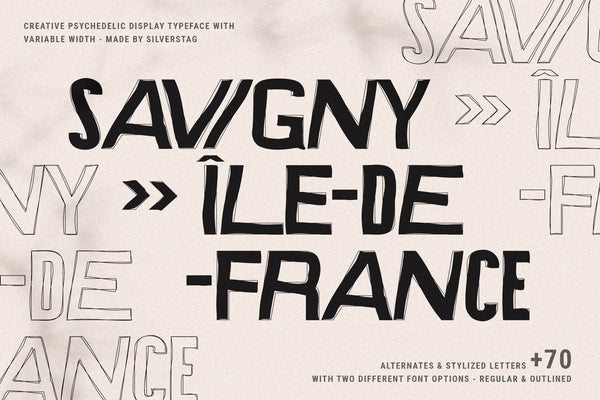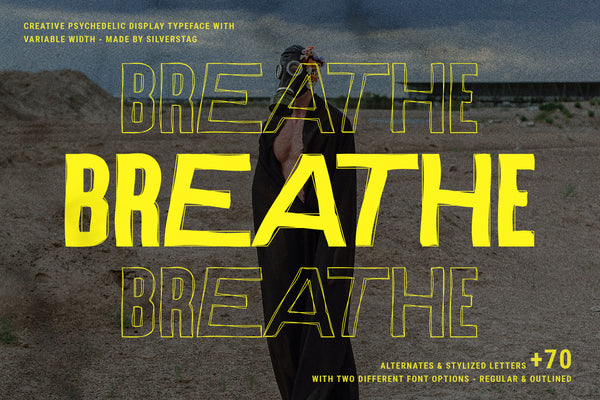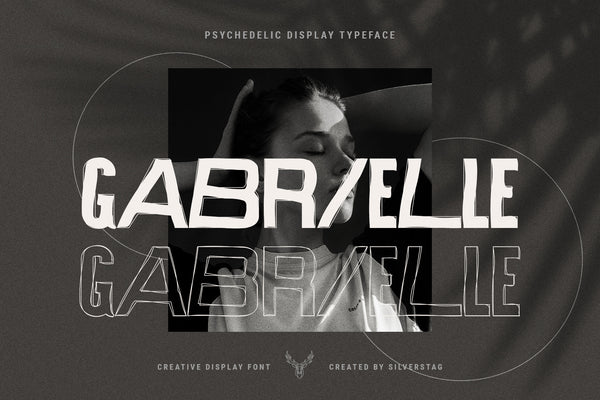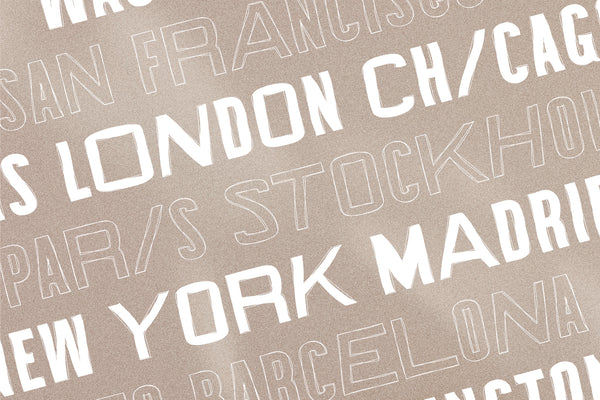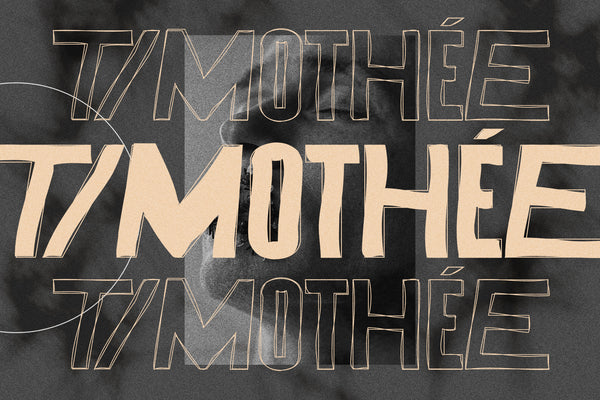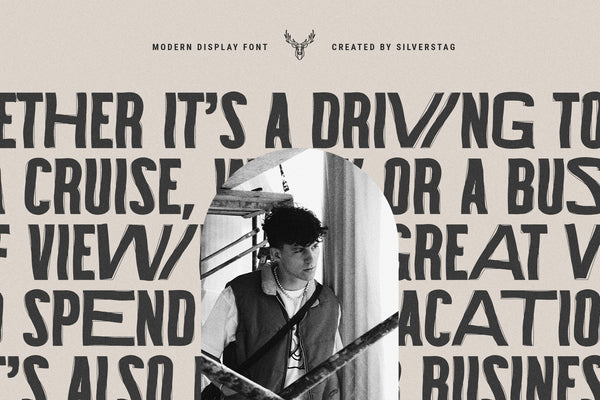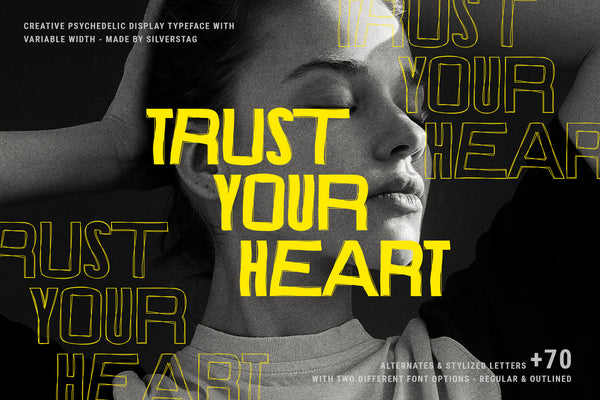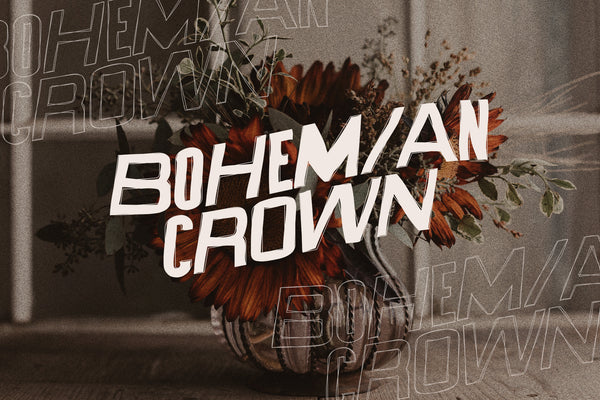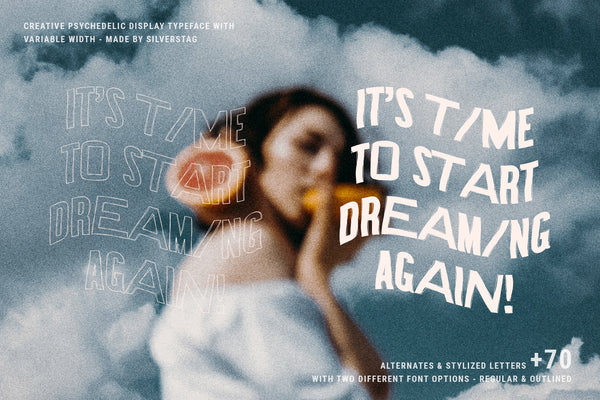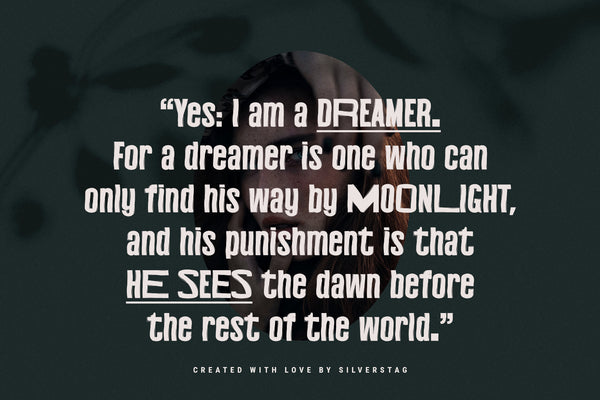
• SAVIGNY psychedelic display font hero reading Ile-de-France over cream
• Breathe specimen in yellow SAVIGNY psychedelic display font over a photo
• Gabrielle specimen in SAVIGNY psychedelic display font over a black-and-white portrait
• Tilted world-city showcase in SAVIGNY psychedelic display font naming Paris Madrid and Barcelona
• Timothee specimen in SAVIGNY psychedelic display font over a dark photo
• Leaf-viewing travel paragraph in SAVIGNY psychedelic display font with an inset portrait
• Trust your heart specimen in yellow SAVIGNY psychedelic display font over a portrait
• Bohemian Crown specimen in SAVIGNY psychedelic display font over dried autumn flowers
• A start-dreaming-again specimen in SAVIGNY psychedelic display font over a cloudy portrait
• Oscar Wilde dreamer and moonlight quote in SAVIGNY psychedelic display font over dark green
SAVIGNY - Psychedelic Display Font
Step into a world of vibrant creativity with SAVIGNY, a psychedelic-inspired display font designed to make your projects stand out. This bold and expressive typeface comes in two versions—Regular and Outline—and features over 70 unique alternate letters for endless creative possibilities.
Perfect for logos, social media graphics, wedding stationery, event invitations, posters, and bold branding, SAVIGNY offers a hand-crafted, nostalgic touch with a modern edge. Each character is meticulously designed to bring energy, fluidity, and psychedelic charm to your typography.
Gabrielle specimen in SAVIGNY psychedelic display font over a black-and-white portrait
Timothee specimen in SAVIGNY psychedelic display font over a dark photo
Trust your heart specimen in yellow SAVIGNY psychedelic display font over a portrait
A start-dreaming-again specimen in SAVIGNY psychedelic display font over a cloudy portrait
Breathe specimen in yellow SAVIGNY psychedelic display font over a photo
Tilted world-city showcase in SAVIGNY psychedelic display font naming Paris Madrid and Barcelona
Leaf-viewing travel paragraph in SAVIGNY psychedelic display font with an inset portrait
Bohemian Crown specimen in SAVIGNY psychedelic display font over dried autumn flowers
Oscar Wilde dreamer and moonlight quote in SAVIGNY psychedelic display font over dark green
Breathe specimen in yellow SAVIGNY psychedelic display font over a photo
Gabrielle specimen in SAVIGNY psychedelic display font over a black-and-white portrait
Tilted world-city showcase in SAVIGNY psychedelic display font naming Paris Madrid and Barcelona
Timothee specimen in SAVIGNY psychedelic display font over a dark photo
Leaf-viewing travel paragraph in SAVIGNY psychedelic display font with an inset portrait
Trust your heart specimen in yellow SAVIGNY psychedelic display font over a portrait
Bohemian Crown specimen in SAVIGNY psychedelic display font over dried autumn flowers
A start-dreaming-again specimen in SAVIGNY psychedelic display font over a cloudy portrait
Oscar Wilde dreamer and moonlight quote in SAVIGNY psychedelic display font over dark green